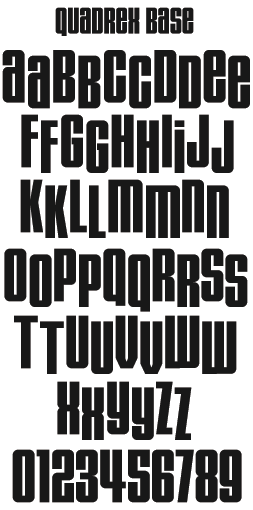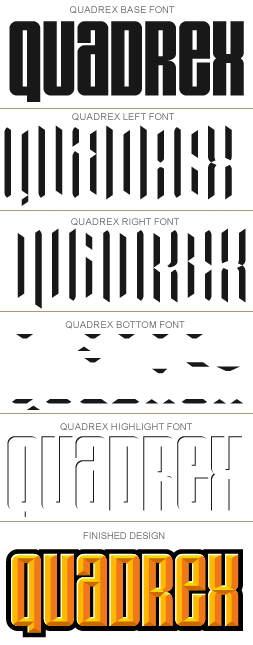
Groundbreaking prismatic style comprised of 4 separate sides, Quadrex allows for more realistic vector-based 3 dimensional effects than ever before. Print it. Scale it. Cut it out of vinyl!
By itself, the Quadrex BASE font is handsome enough, but add the other layers-- and you've got a surefire head turner. Quadrex includes 5 individual fonts: Quadrex BASE, Quadrex LEFT, Quadrex RIGHT, Quadrex BOTTOM, and Quadrex HIGHLIGHT. Quadrex has also been designed to "bounce". That is, the uppercase characters are set slightly higher than the lowercase. Alternating uppercase and lowercase letters will create this effect. For example the "Kids Stuff" image to the left was created by typing like this: KiDs StUfF. (Careful that you don't let your client know how much fun this really is!)
While Quadrex is simple to use, a basic knowledge of light & shadow and some design experience is necessary to get the most from it. Therefore it may not be suitable for the novice or those using word processing programs. Professional designers however, will get a kick out of toying around with Quadrex and the many creative possibilities it has to offer. Please read the special notes. |
Quadrex includes full punctuation & accent characters |  |